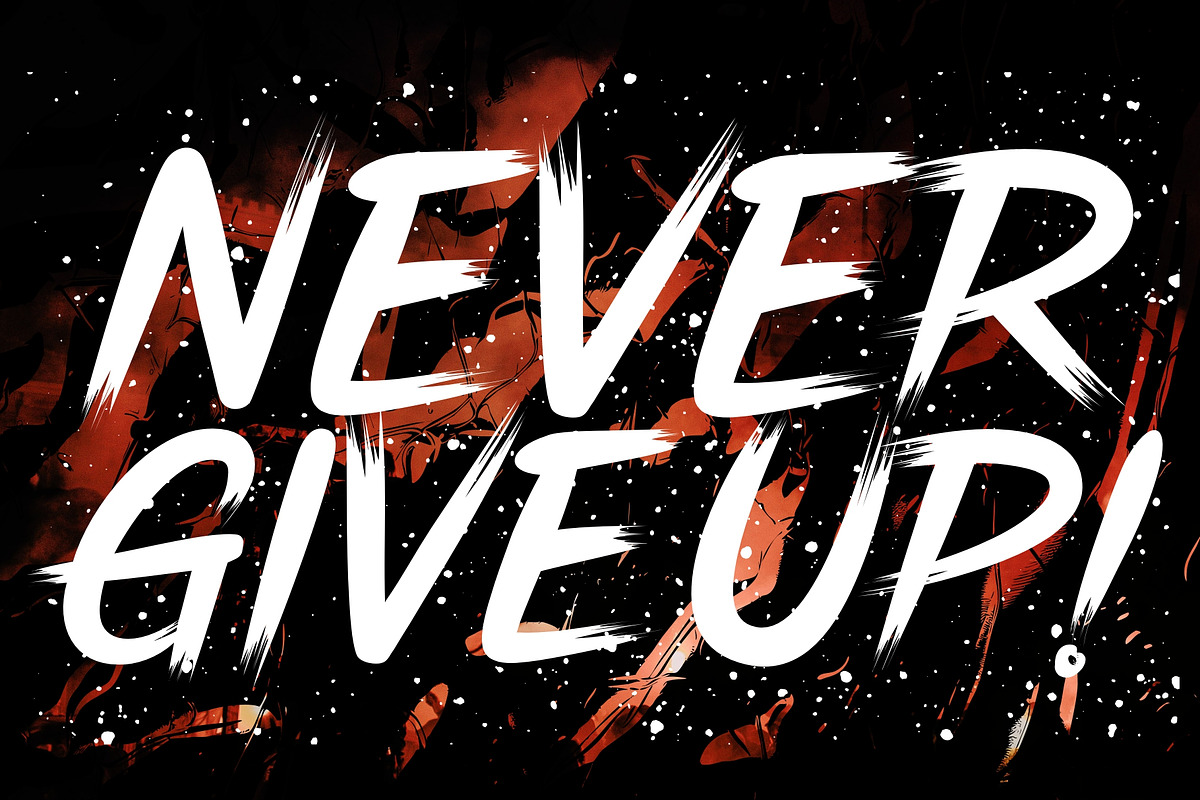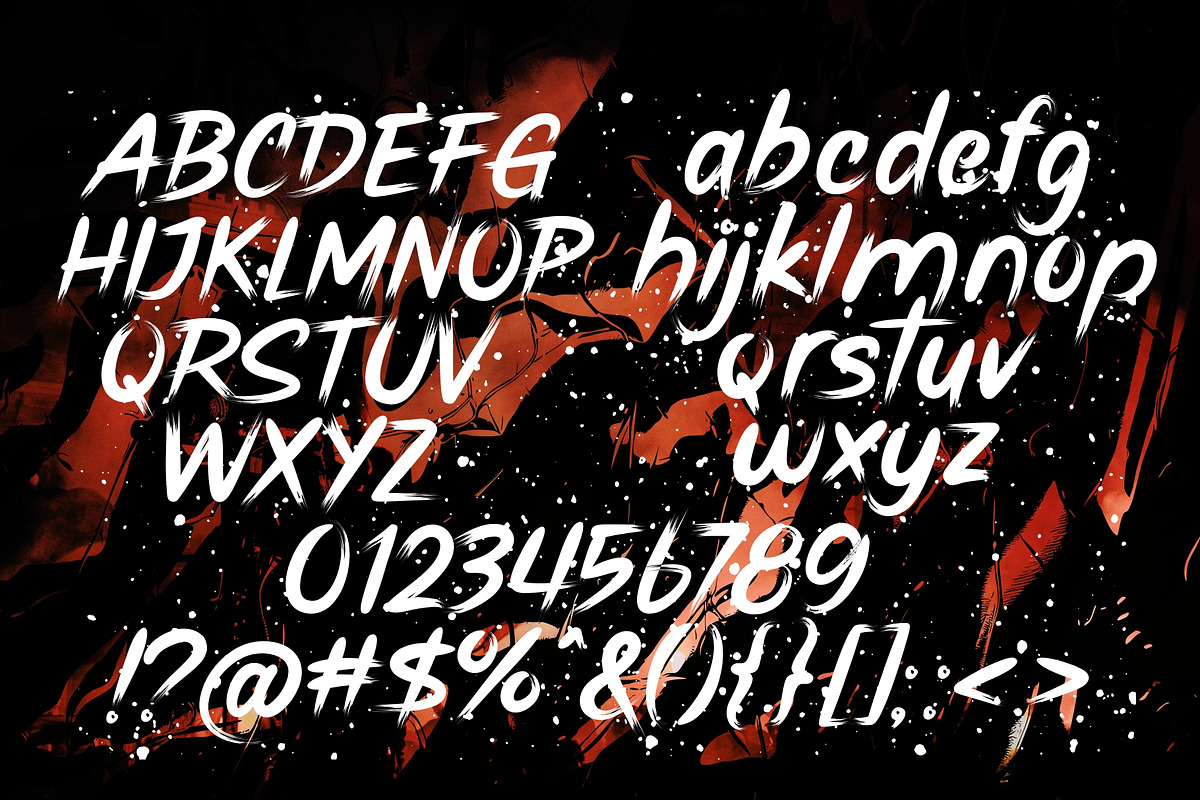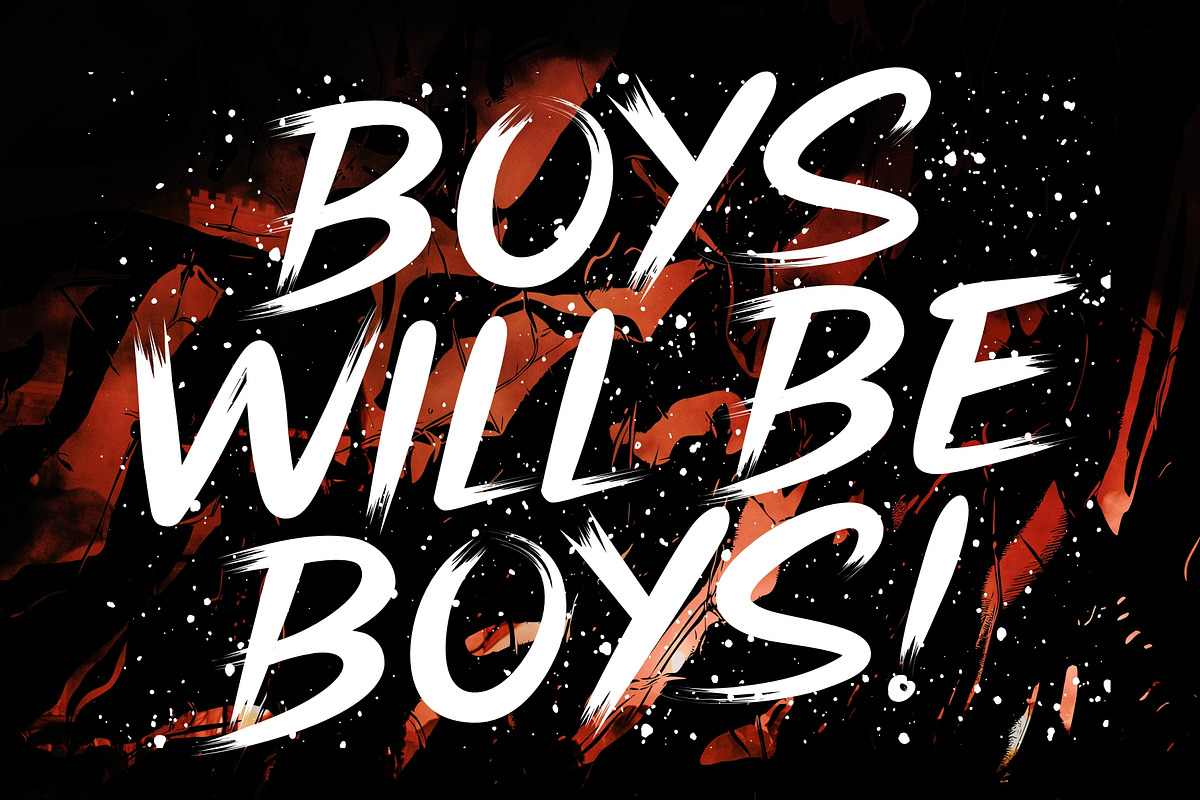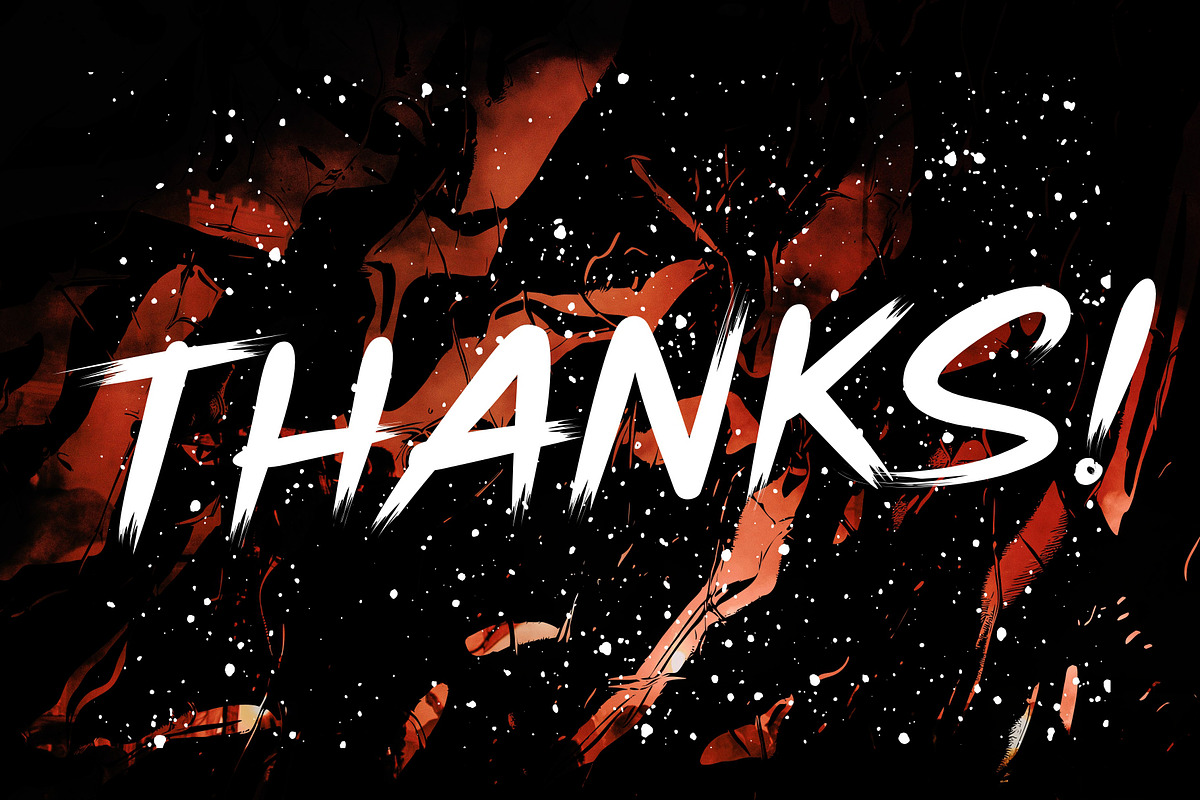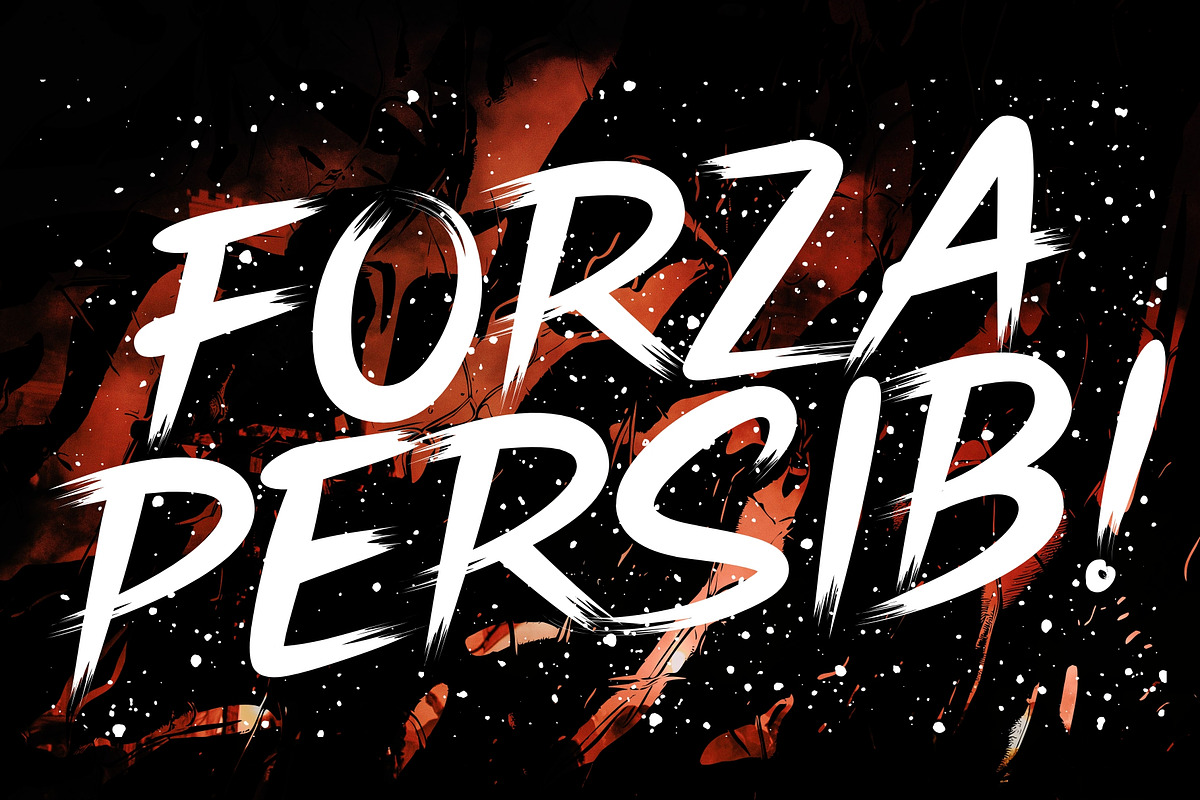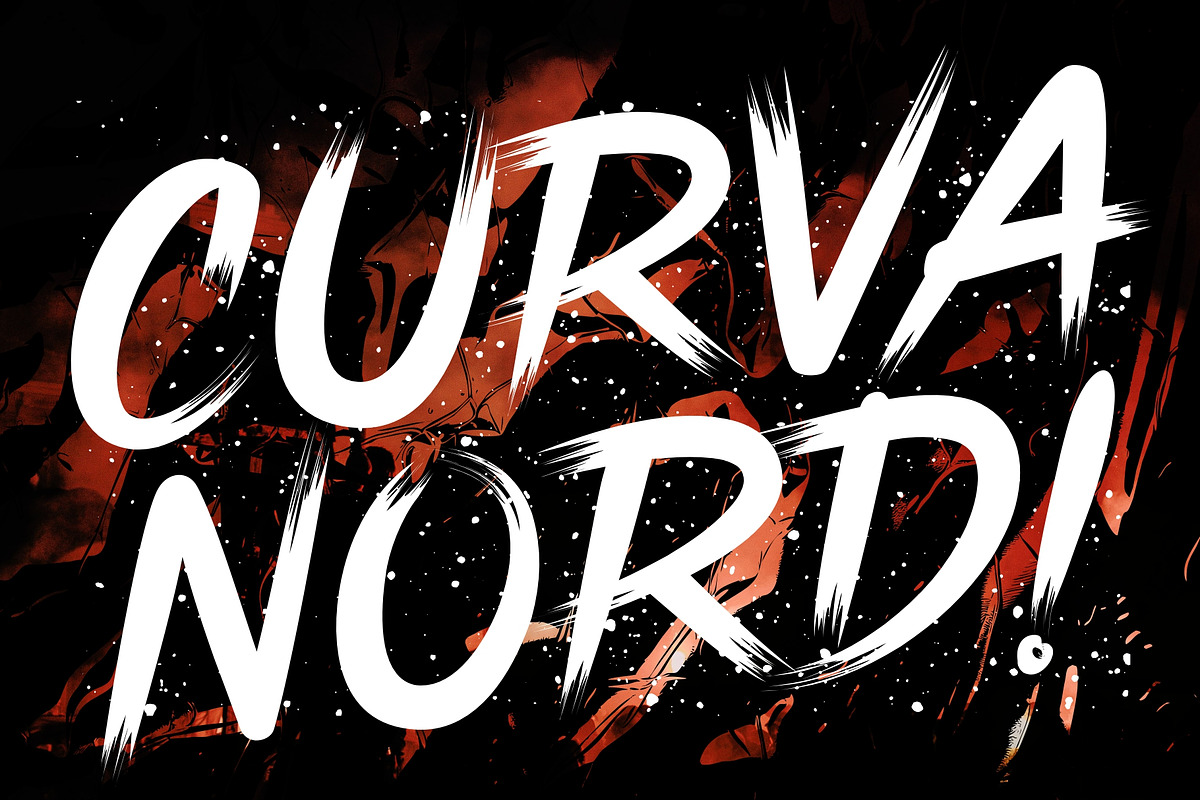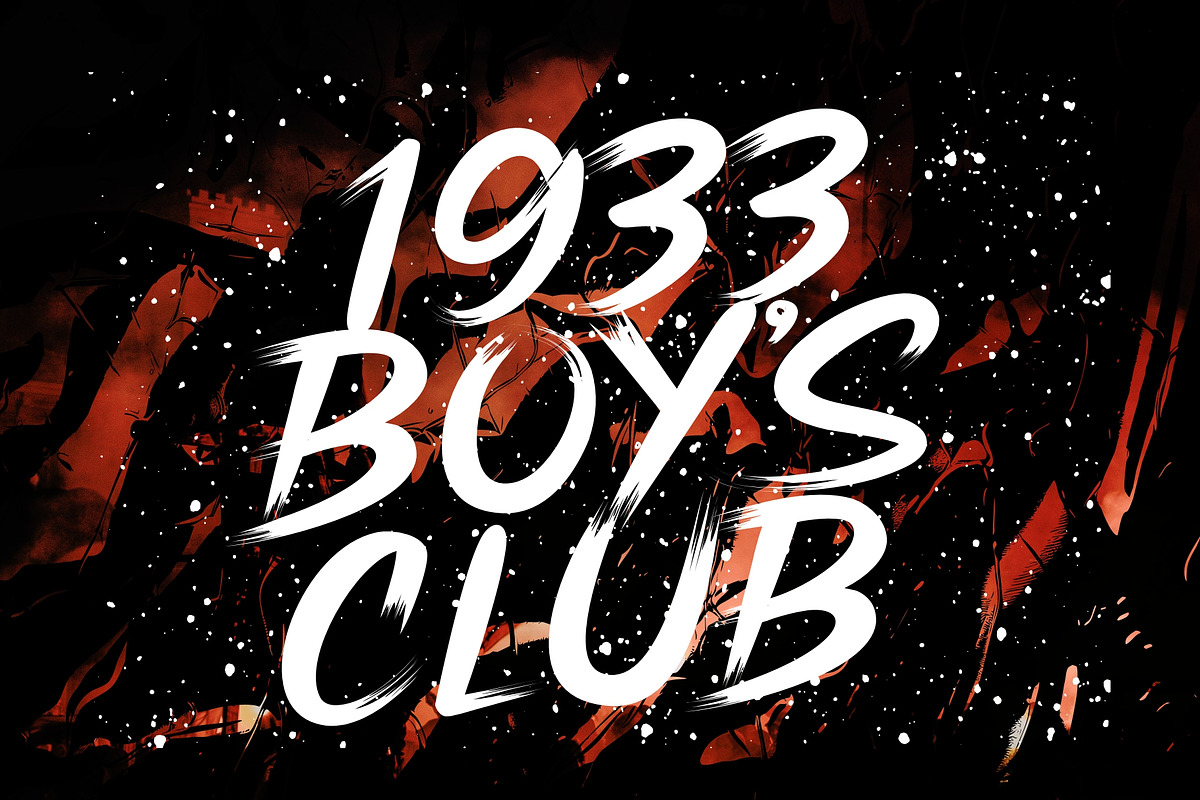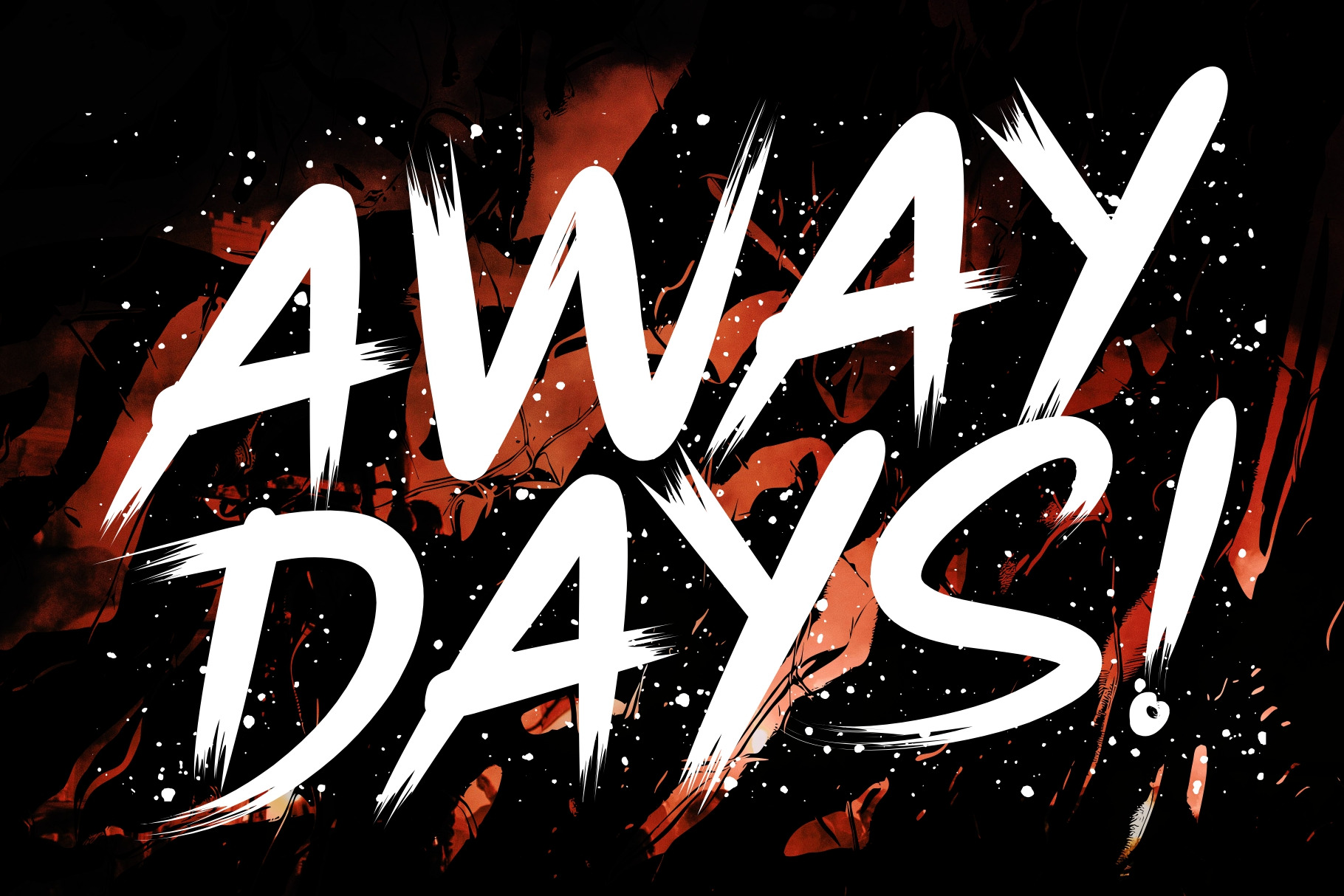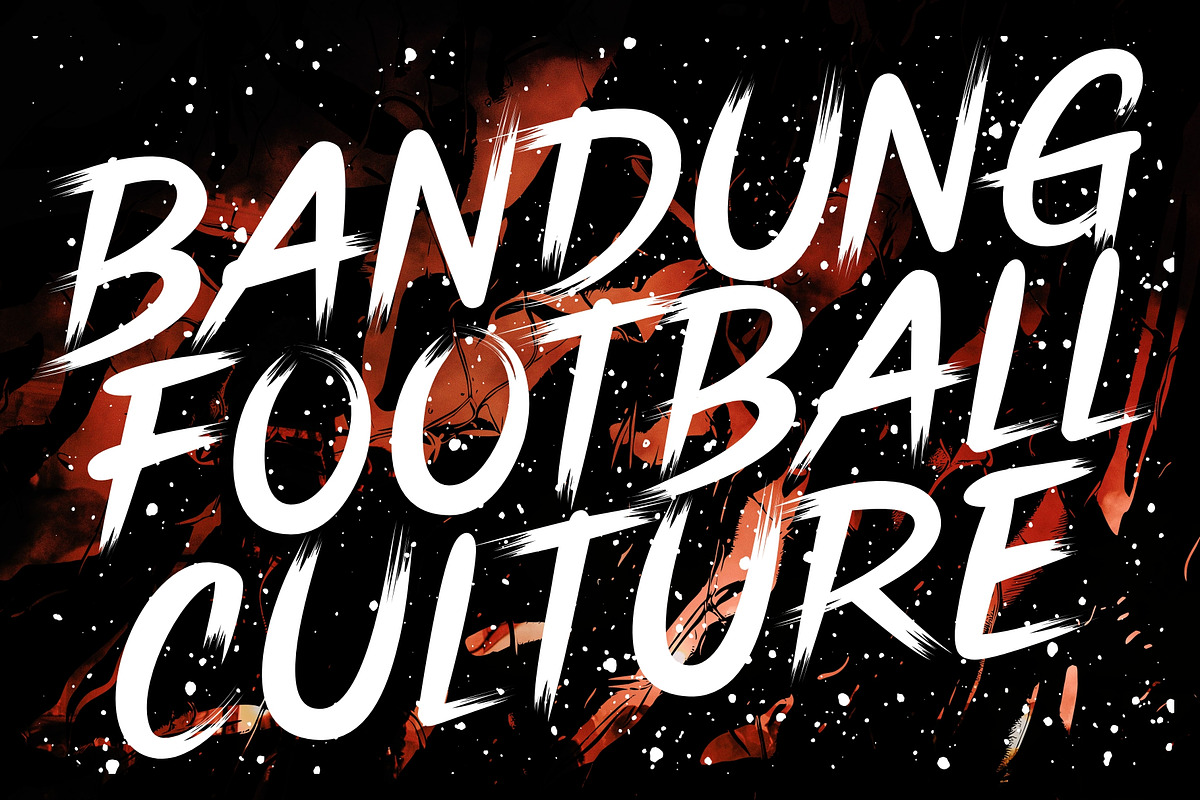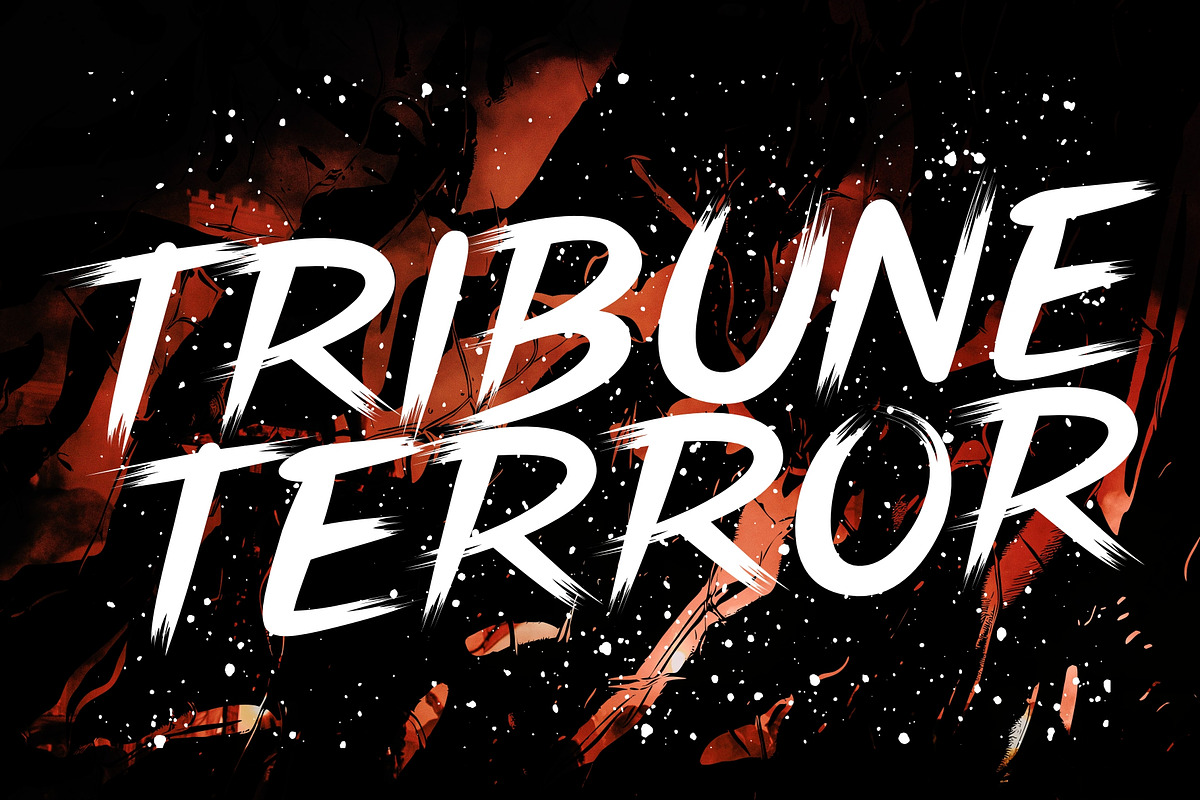
Away Days - Modern Brush Typeface
Away Days is a modern brush typeface. This font is perfect for poster design, football design, artistic logos, book covers, merchandising, newsletters, creative branding, advertising, magazines, album covers, quote designs and more.
\\- Uppercase
\\- Lowercase
\\- Numeric & Multilingual support